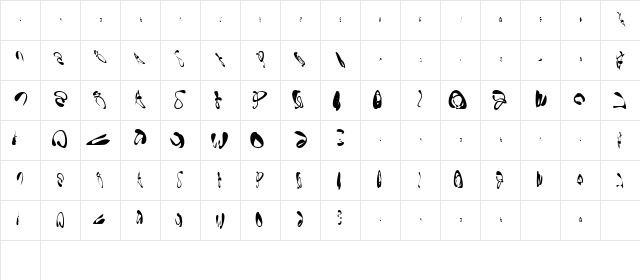
Gornathon Regular Free Font
Gornathon Regular
Design Context for Gornathon
Gornathon is a composed and adaptable typeface that performs quietly and consistently across a wide range of design contexts.